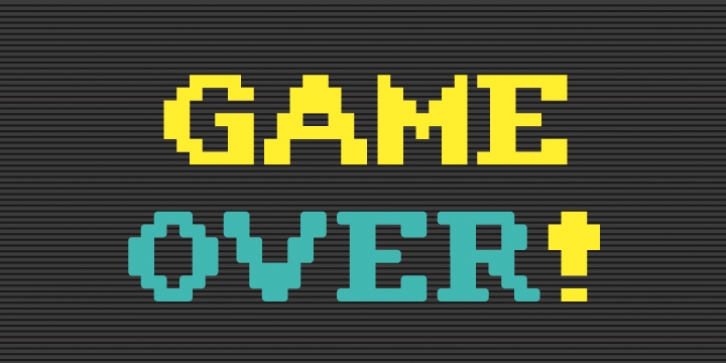
Amiga was designed by Boris Kahl and published by Volcano Type. Amiga contains 2 styles and family package options.
The Amiga is a family of home computers originally developed by Amiga Corporation as an advanced game console. Development on the Amiga began in 1982. Commodore International introduced the machine to the market in 1985, after having bought Amiga Corp. The machine was ahead of its time, sporting a custom chipset with advanced graphics and sound capabilities, and a sophisticated multitasking operating system.